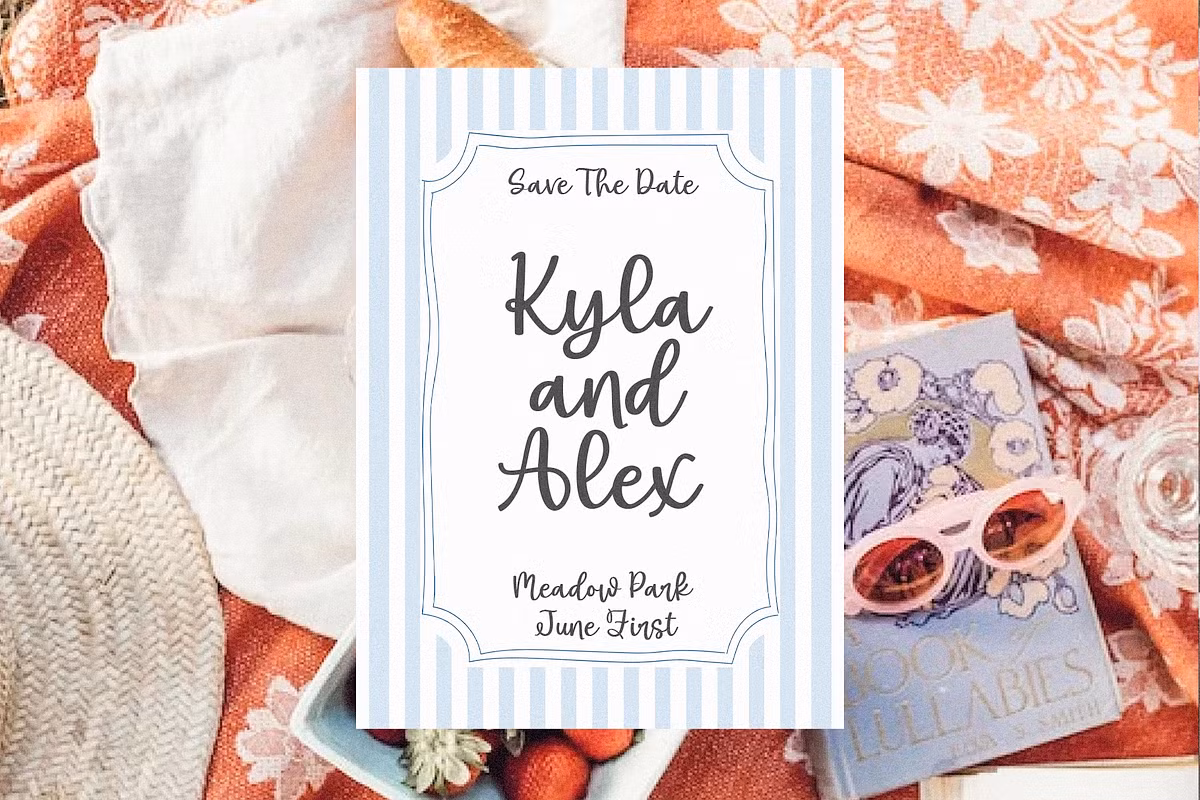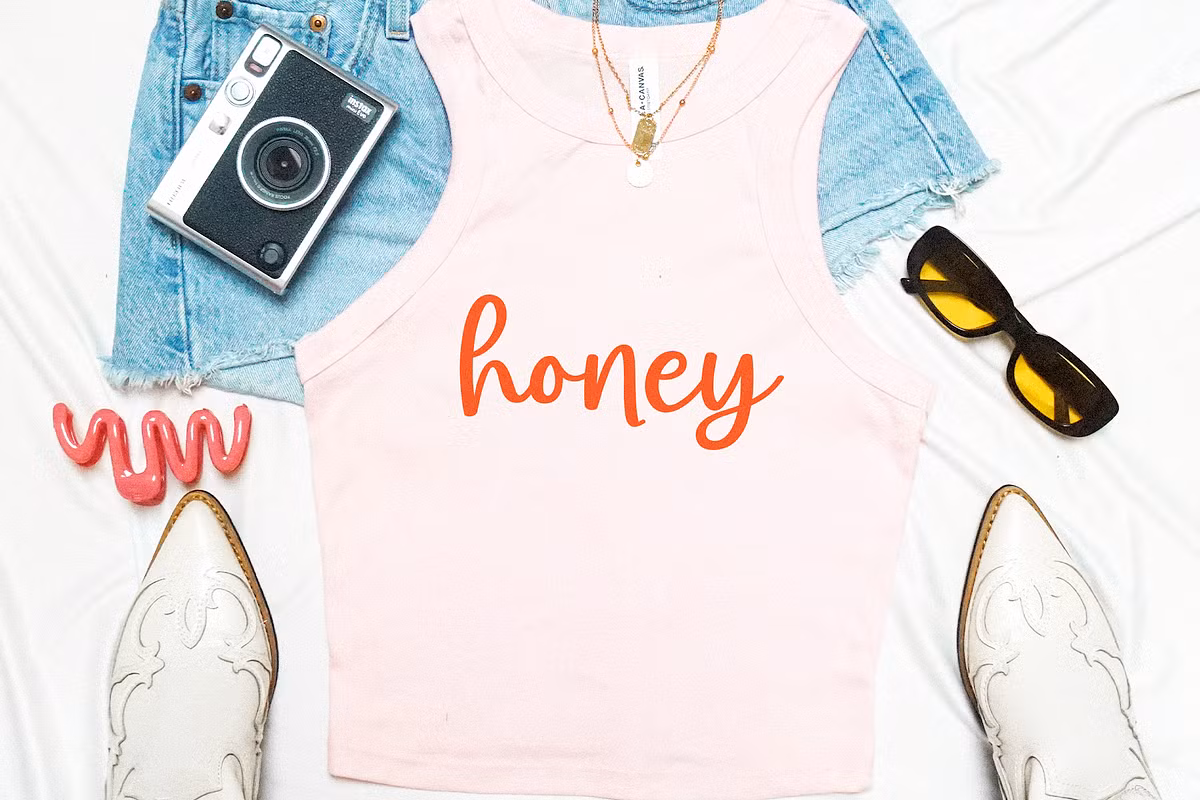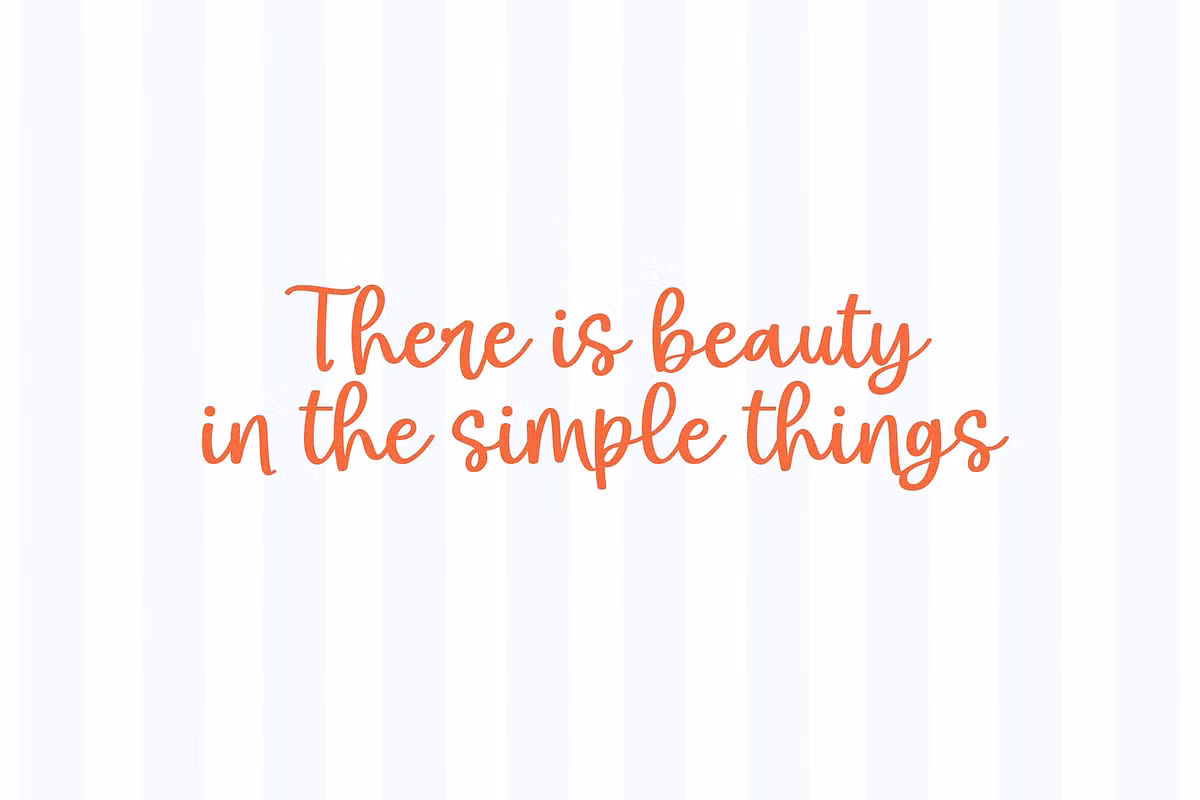
Homebody: Casual Handwritten Script Font for Creative Projects
Homebody is a charming and casual handwritten script font designed to bring a personal touch to your creative projects. This versatile font captures the essence of hand-lettering, making it an excellent choice for various applications, from wedding decor to logos and more. In this article, we will delve into the features, design style, use cases, pairing suggestions, and licensing information of the Homebody font, providing you with all the insights you need to utilize this delightful typeface effectively.
Design Style of Homebody
The Homebody font has a really casual, handwritten feel to it, with lines that flow nicely and shapes that look pretty organic. It’s actually designed to look a bit imperfect, like it was written by hand, which gives it a warm and welcoming feel. This makes it perfect for projects where you want to create a sense of comfort and familiarity, like personal or heartfelt designs. It’s great for when you want your message to feel friendly and approachable, rather than formal or fancy. The imperfections in the font actually add to its charm, making it feel more like something someone wrote just for you, rather than a generic, computer-generated message. Overall, the Homebody font is a great choice when you want to create a cozy and inviting atmosphere with your design.
What really makes Homebody stand out is how smoothly it flows – the letters are connected in a way that looks just like you’re writing with a pen on paper. The font has lots of ligatures, which are these special connections between letters that make it look like your handwriting. This means that when you’re writing with Homebody, the letters flow together perfectly, without any awkward jumps or breaks. It’s not just pretty to look at, either – all these little details make it really useful for all sorts of design projects. You can use it to create things that look friendly and approachable, but also professional and put-together. The fact that it’s so easy to read and looks so nice is a big part of what makes Homebody such a great choice for designers.
Character Sets and Accessibility
The Homebody font is really versatile and has a lot of characters to choose from, which is great for people who want to express themselves in different languages or add special touches to their designs. You’ve got your basic uppercase and lowercase letters, numbers, and punctuation marks, but you also have ligatures, which are basically combinations of letters that are connected in a fancy way. This means you can create some really unique and personalized stuff, like custom invitations, social media posts that stand out, or decorative banners that look amazing.
With all these options, you can really let your creativity shine and make your designs look however you want them to. Whether you’re going for something simple and elegant or bold and eye-catching, the Homebody font has got you covered. You can use it to add a personal touch to just about anything, and that’s what makes it so great.
Use Cases for Homebody Font
The versatility of the Homebody font allows it to shine in numerous creative projects. Here are some popular use cases where this font can elevate your designs:
- Wedding Decor: The Homebody font is perfect for wedding invitations, save-the-date cards, and table settings. Its romantic and casual aesthetic adds a personal touch that resonates with guests.
- Branding: If you’re running a small business or working as a freelancer, you might want to think about using Homebody for your branding. The thing about Homebody is that it has a really friendly look to it, which can be super helpful in creating a logo that people will actually remember. And the best part is, it can really reflect the personality of your brand, making it stand out in a crowded market.
- Cricut Projects: Homebody is an excellent choice for Cricut projects, allowing you to create custom vinyl decals, signs, and crafts. Its script style makes any project feel handmade and unique.
- Quotes and Inspirational Designs: Utilize Homebody in your social media posts or wall art to showcase motivational quotes. The font’s inviting style makes the message feel more relatable and engaging.
- Painted Banners: For events, parties, or home decor, the Homebody font can be used in painted banners, adding a touch of whimsy and creativity to your decorations.
Pairing Suggestions for Homebody Font
With its unique characteristics, the Homebody font can be paired effectively with other typefaces to enhance your design projects. Consider using it with clean serif or sans-serif fonts for contrast, ensuring that the overall look remains harmonious yet distinct.
Experiment with different font combinations to see what resonates best with your project’s theme and message. The key is to maintain a balance between readability and aesthetic appeal.